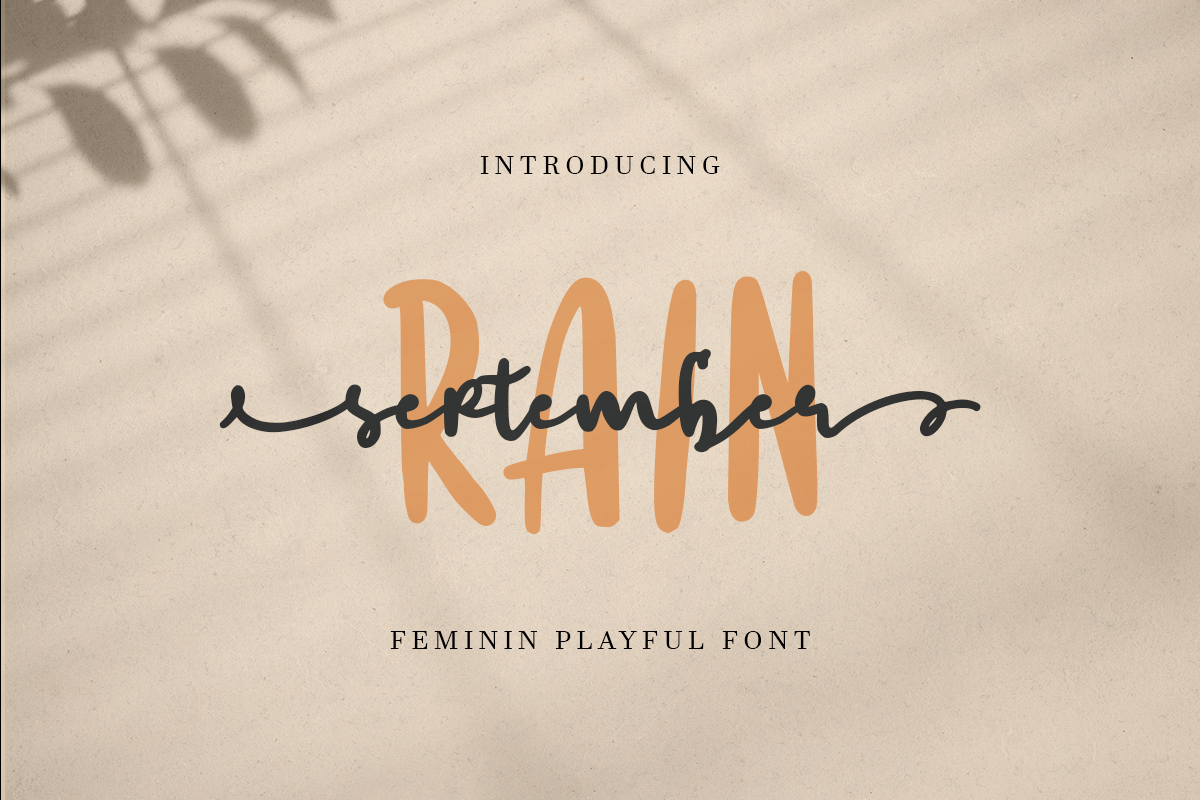
September Rain
-feminine playful font
September Rain
September Rain is a Handwritten Font with cute and feminine style that inspired from September month. This font specially crafted for your branding, quotes design projects or cute logo, unique, modern for any designs such as print, merchandise, and so many more with easy to use but unique results are so playful and feminine.